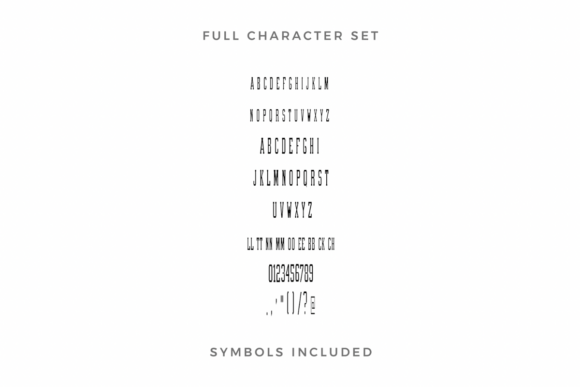
Championship Font
Introducing Championship – a singular and riveting font that perfectly encapsulates the dynamic energy found in sports, collegiate, and university competitive arenas. With its sporty zest and academic flair, Championship is a font that truly stands out in its category. Unique in its design and sophisticated in its appeal, it embodies the exhilaration of competition, making it a winning choice for designs that aim to communicate strength, speed, and ambition. This charismatic font is your secret weapon to adding a dash of competitive spirit to any text or design layout. Overall, Championship is much more than a font; it’s an innovative blend of athleticism and scholarship.